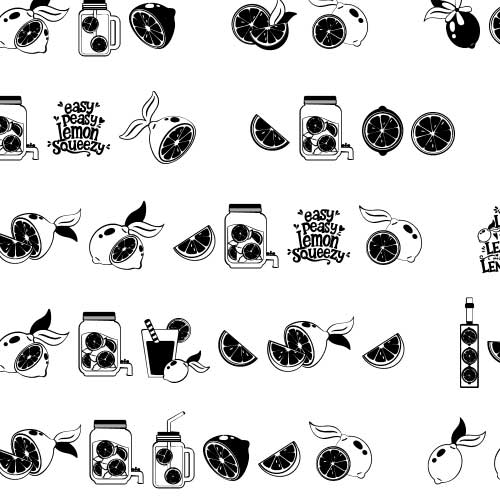
DB Pink Lemonade - DB
This adorable doodlebat font features 26 fun lemon and lemonade inspired images. Everything needed for a great lemonade stand! Perfect for cards, crafts, gifts, planner stickers, parties, scrap book pages, decor and more!